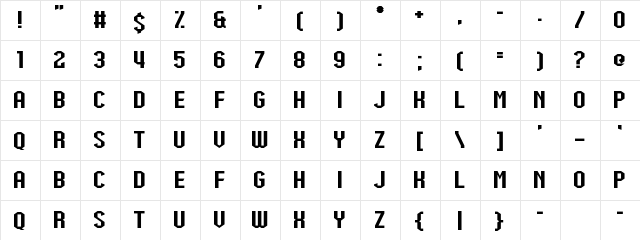
Shock Mint Fund Regular
Design Context for Shock Mint Fund Typeface
Shock Mint Fund has an approachable, lighthearted character — its loose, expressive forms are well-suited to children's content, casual branding, and fun-first design.
Font Pairing: Pairs well with a rounded or humanist sans for body copy, maintaining the friendly tone without relying on Shock Mint Fund to carry extended reading.
Pro Tip: Use Shock Mint Fund at larger display sizes where its expressive character can land. Pair with a clean, simple sans for body copy to maintain readability.